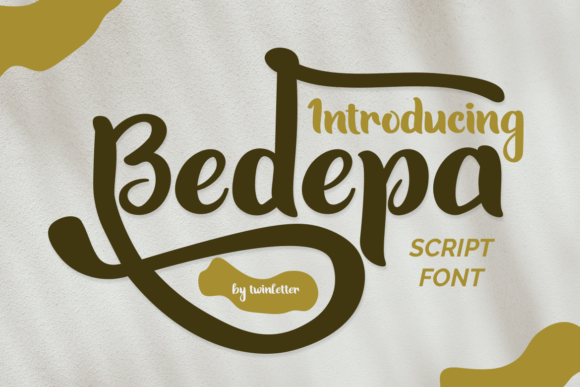
Dive into the enchanting realm of Bedepa Font, a captivating script font family that exudes a remarkable charm and authenticity. Inspired by the harmonious union of a brush pen and pencil, Bedepa Font manifests an array of impeccable characteristics that make it the ultimate choice for magazine titles, branding projects, and countless other design endeavors.
With its inherent beauty and endearing aesthetics, Bedepa Font possesses the ability to transform any creative project into a masterpiece. Allow your imagination to flourish as you craft alluring logos, captivating website designs, and eye-catching social media posts that are sure to leave a lasting impression.
The PUA encoding of Bedepa Font grants you effortless access to an extensive collection of glyphs and swashes, empowering you to effortlessly add an extra layer of visual interest and sophistication to your designs. Experiment with the font's alternate glyphs and ligatures to introduce a touch of individuality and creativity, making your projects stand out from the crowd.
Unleash your creative potential and embark on a journey of endless possibilities with Bedepa Font. Let its authentic charm and remarkable versatility elevate your designs to new heights of elegance and allure. Seize this opportunity to make a bold statement and leave an enduring impact on your audience.